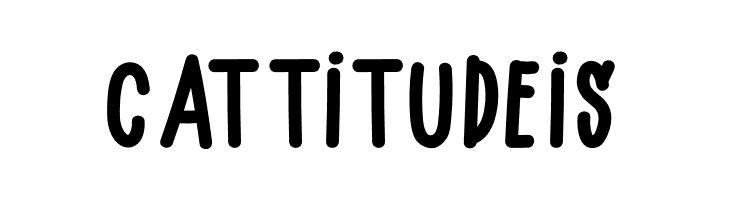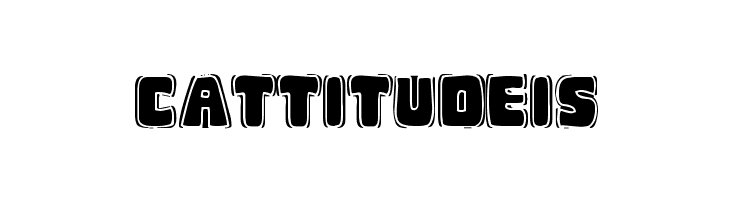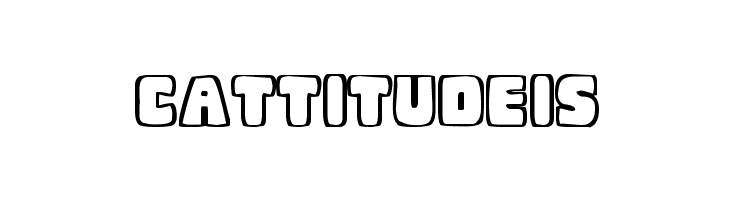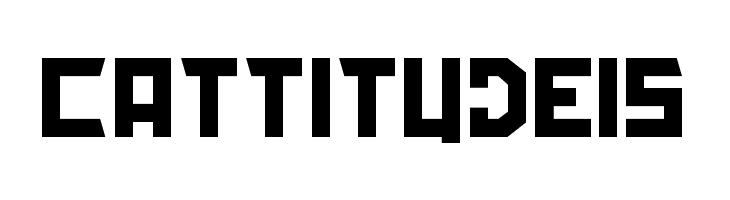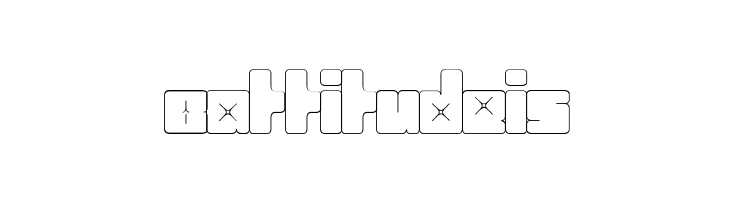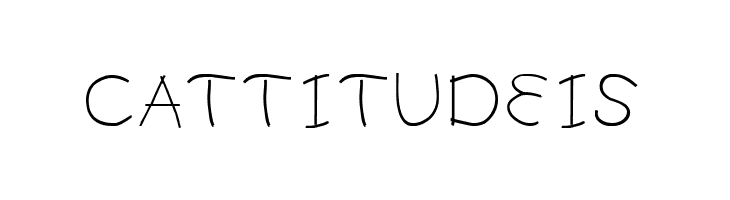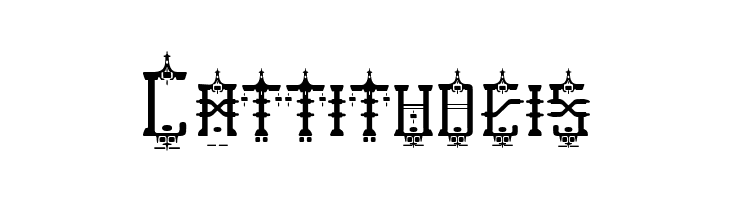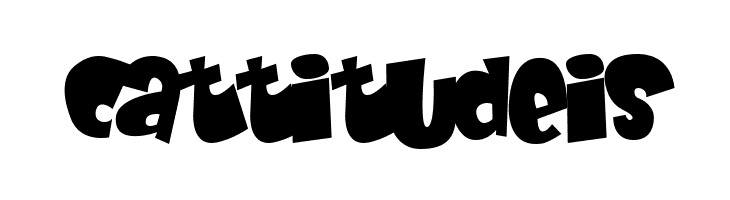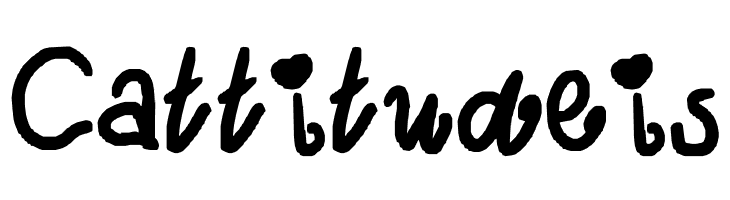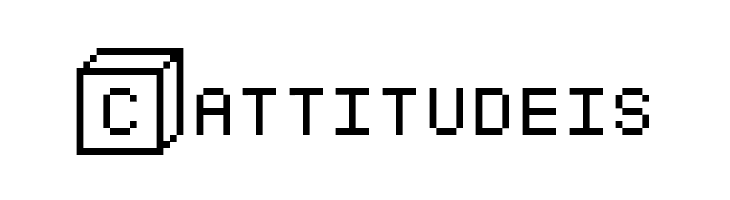
A modern, geometric monospaced font with clean lines and balanced spacing.
A vintage-inspired font with sharp serifs and art deco elements.
A playful and whimsical font with vintage theatrical flair.
A whimsical, hand-drawn font with a playful, spooky theme.
A playful, blocky font with a pixelated, retro style.
A modern, tall, and narrow sans-serif font with consistent stroke width.
A modern, italic font with a sleek, dynamic style.
A playful, handwritten font with bold, expressive strokes.
A playful, handwritten font with dynamic strokes and a whimsical style.
A playful, hand-drawn font with a childlike, whimsical style.
A playful, bold font with rounded, outlined characters and a whimsical style.
A bold, playful font with rounded characters and contrasting outlines.
A bold, playful font with thick, rounded characters and a cartoon-like appearance.
A bold, geometric font with a modern and playful style.
A playful, bold font with a cartoonish and whimsical style.
A playful, modern font with rounded and angular elements, perfect for creative projects.
A bold, playful font with rounded edges and consistent stroke width.
A bold, italicized font with a modern, playful style and unique curvature.
A playful, italicized font with rounded, dynamic letterforms.
A dynamic and fluid script font with expressive, artistic strokes.
A pixelated, grid-based font with a retro digital aesthetic.
A whimsical and decorative font with intricate details and playful embellishments.